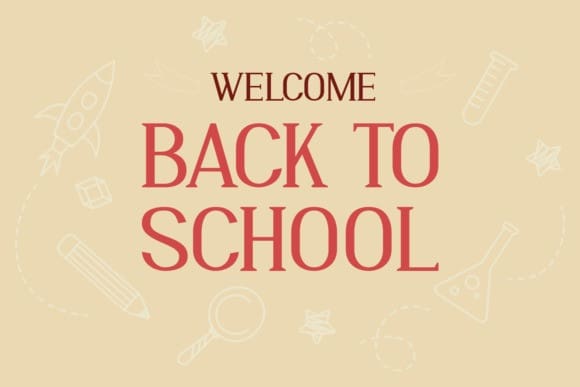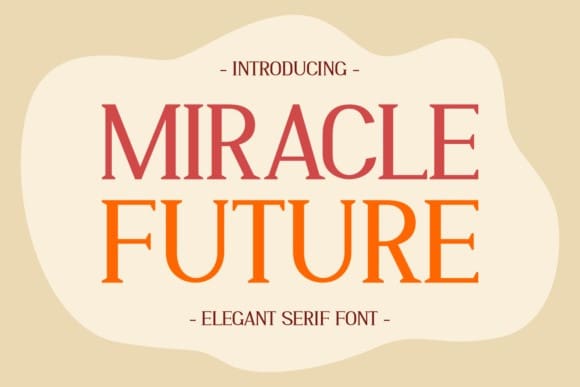
Miracle Future Font
Miracle Future Font is a cool and modern serif font that transcends conventional design boundaries. Its sleek letterforms and futuristic aesthetic embody cutting-edge sophistication. Ideal for projects requiring a bold and contemporary typeface, MiracleFuture adds a touch of modernity and sophistication to your designs.